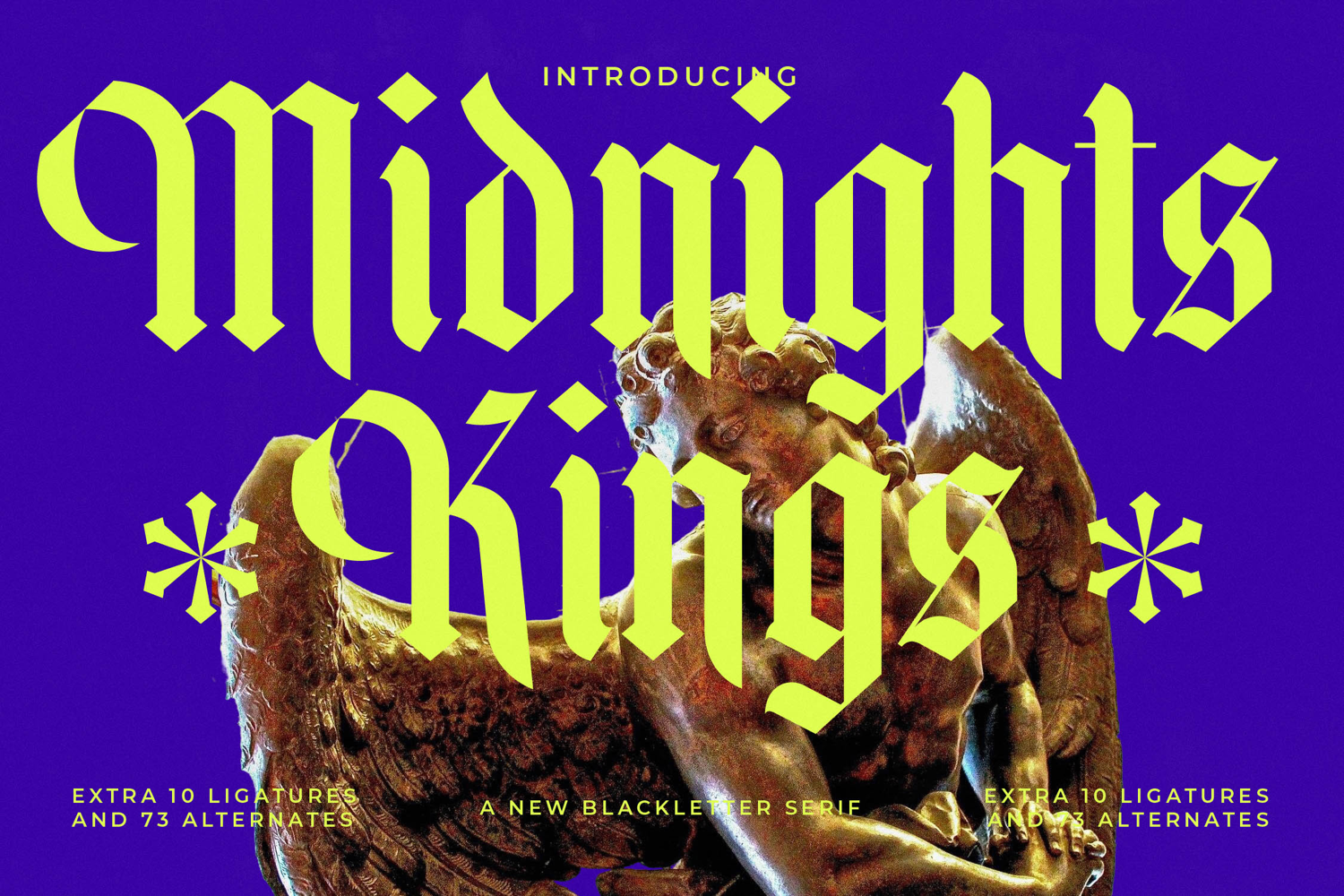
Midnights Kings - New Blackletter Serif
Unleash a realm of profound design elegance with Font Midnights Kings - New Blackletter Serif Blackletter, a truly striking typeface that marries historical grandeur with a contemporary edge. This unique Blackletter serif font exudes sophistication and a powerful visual presence, instantly elevating any project. Its meticulously crafted letterforms command attention, offering a timeless appeal that resonates deeply with discerning audiences.
Experience unparalleled typographic versatility through Font Midnights Kings - New Blackletter Serif Blackletter's rich character set. Featuring a remarkable 10 ligatures and 73 alternates, designers gain immense creative freedom to customize and fine-tune their compositions. The font’s high-contrast strokes and ornate details create a dynamic interplay of thick and thin lines, ensuring a distinct and memorable aesthetic that stands apart.
Perfectly crafted for projects demanding distinction, Font Midnights Kings - New Blackletter Serif Blackletter is ideal for luxury branding, high-end packaging, and editorial design that seeks to make a bold statement. Its commanding presence is also perfect for album art, apparel graphics, event invitations, and any application requiring statement-making headlines or an aura of refined power.
Expand your design horizons without boundaries. With its extensive multilingual support, Font Midnights Kings - New Blackletter Serif Blackletter adapts seamlessly across global markets, making it incredibly versatile for international projects. This ensures your brand maintains a consistent and impactful presence worldwide. Invest in Font Midnights Kings - New Blackletter Serif Blackletter to imbue your work with an unforgettable, premium aesthetic that captivates.